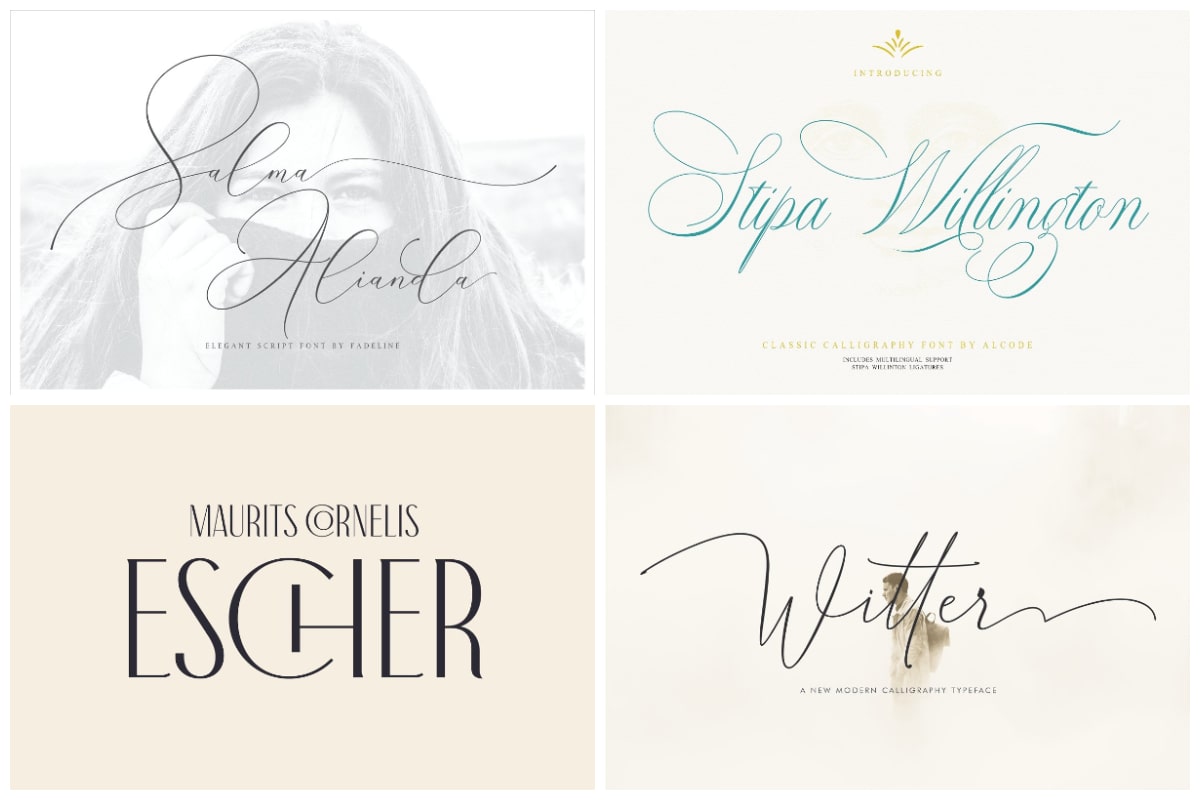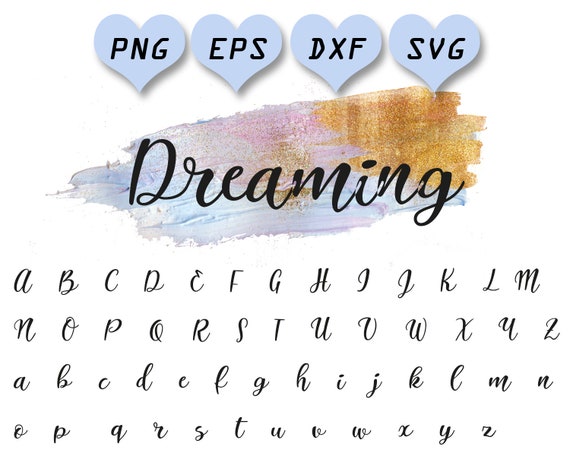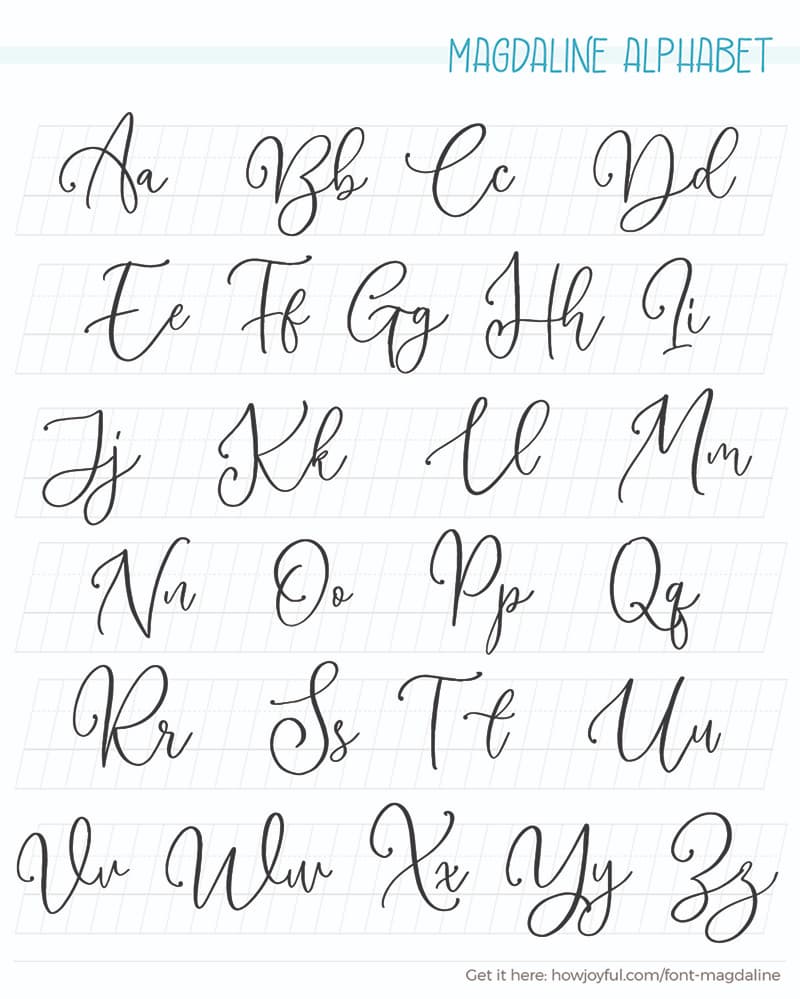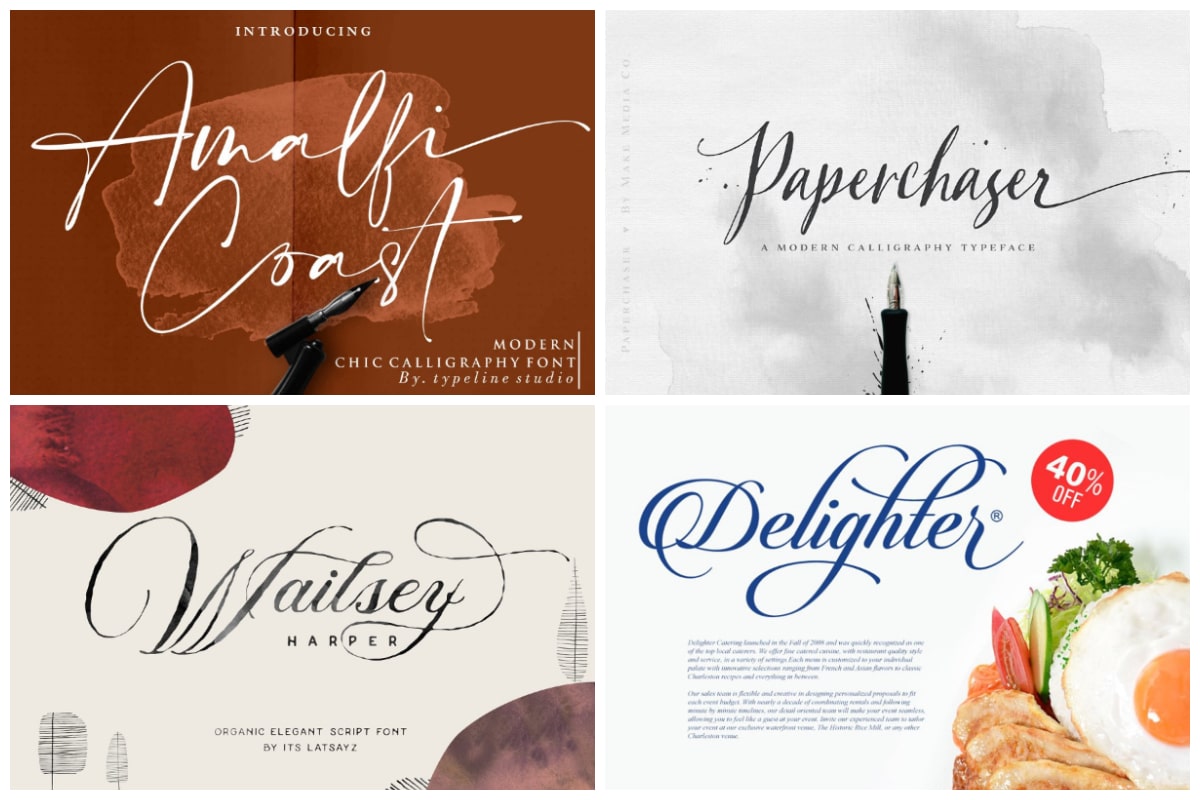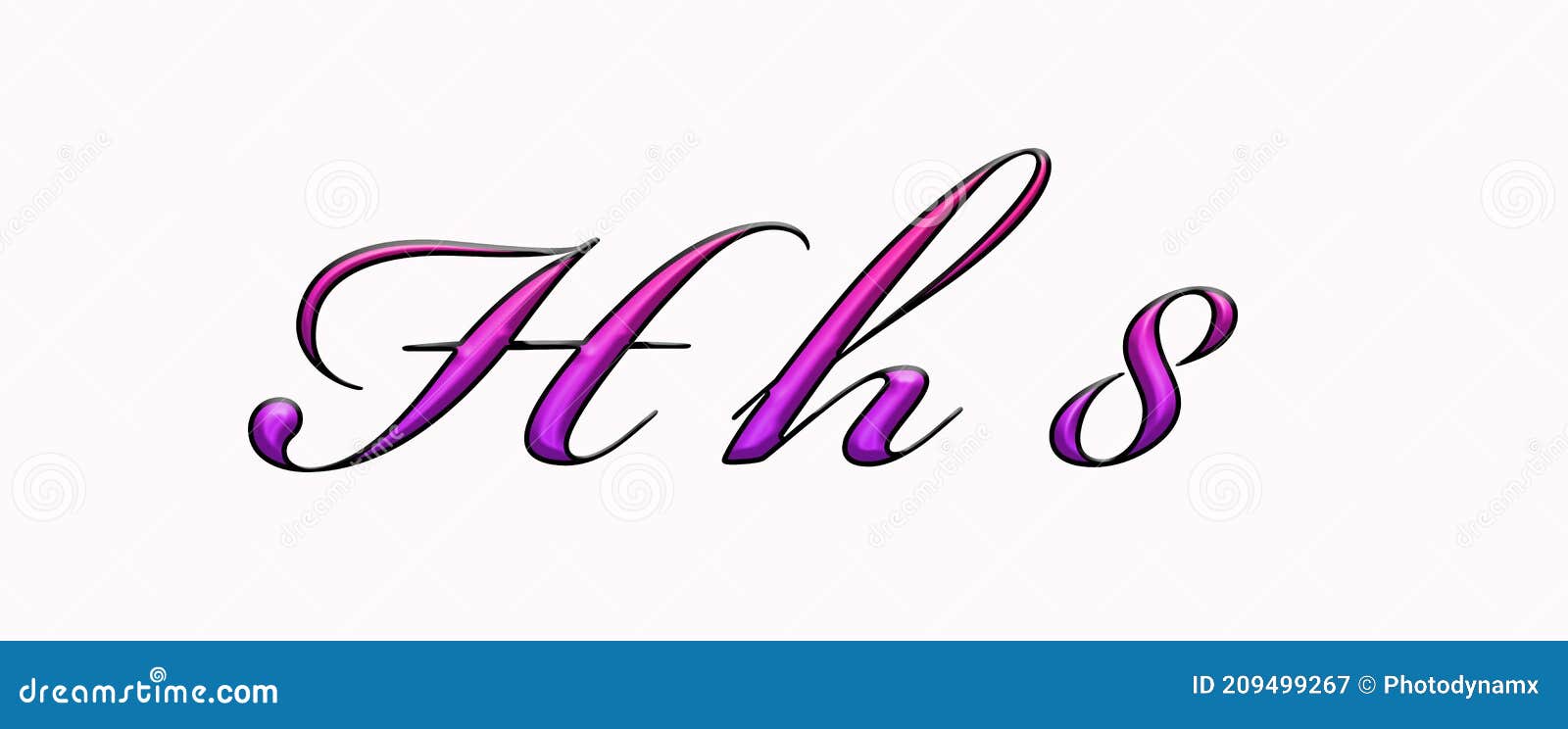
They may be commonly used for personal art projects and special occasions but they are just as coveted in the professional field. The main sub-styles are traditional calligraphy and modern.
Burgues Script created by Alejandro Paul is a typical font family of calligraphy style.
They often look as if they were drawn with flat-tipped pens or brushes. The alternative characters were divided into several Open Type features such as Stylistic Sets Stylistic Alternates Contextual Alternate SWASH and Ligature. We have 2033 free Modern Calligraphy Fonts to offer for direct downloading 1001 Fonts is your favorite site for free fonts since 2001.
Modern calligraphy fonts can be very useful in various types of designs. We have 1246 free Calligraphy Handwritten Fonts to offer for direct downloading 1001 Fonts is your favorite site for free fonts since 2001. Calligraphy Generator calligraphy is a visual art related to writing.
You can use this font in your design product range like. The Open Type features can be accessed by using Open. You can see from scratches that give a realistic and modern style.
It is the design and execution of lettering with a broad tip instrument brush or other writing instruments. Browse worry free commercial use fonts web fonts and app fonts tagged Modern-calligraphy at Fontspring. Font looks sweet and full of the best characters.
Click to find the best 990 free fonts in the Modern Calligraphy style. The height of calligraphy was reached in the middle age where monks developed the narrow writing style called gothic allowing more words to fit on a single line as paper was expensive at the time. 10 hours agoAmertha is a lovely and flowing modern calligraphy and handwritten font.
As this page shows calligraphy looks expressive and beautiful it is widely used in wedding invitations and event invitations and calligraphy also has a large number of enthusiasts. This style can end up looking very similar to hand-lettered fonts but the difference is that calligraphy is written and not drawn. Calligraphy is an artistic writing style where the pressure is varied to create thick and thin lines all in a single stroke.
Looking for Modern Calligraphy fonts. Melinda Script is a beautiful and interesting calligraphy handwriting font. You can very well use modern calligraphy fonts in your business cards stationary event banners and more.
Modern calligraphy typefaces differ from traditional calligraphy in that they do not adhere to specific lettering rules. Calligraphy is an ancient writing technique using flat edged pens to create artistic lettering using thick and thin lines depending on the direction of the stroke. It looks wonderful on wedding invitations thank you cards quotes greeting cards logos business cards and every other design which needs a handwritten touch.
It usually involves a nibbed pen or brush. This font is PUA encoded which means you can access all of the glyphs and swashes with ease. The writing is readable but is usually extravagant and embellished with flourishes.